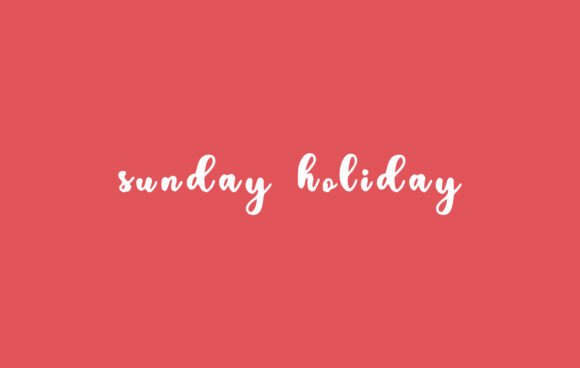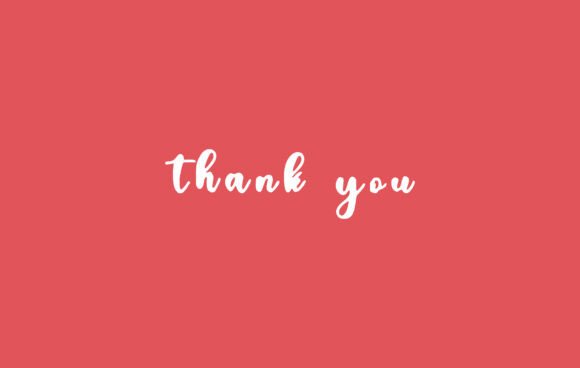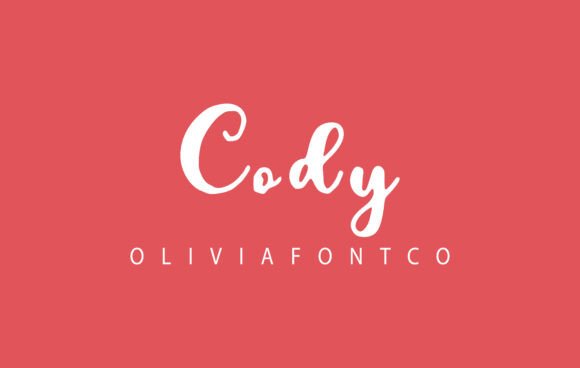
Cody Font: Elevate Your Designs with a Romantic Handwritten Touch
Are you on the hunt for a font that adds a touch of romance and elegance to your designs? Look no further than the Cody Font. This authentic handwritten font is expertly designed to capture the hearts of designers and crafters alike, making it a true favorite among creative enthusiasts. With its perfect blend of legibility and aesthetic appeal, Cody Font is poised to take your creative ideas to new heights.
The Characteristics of Cody Font
Cody Font boasts a romantic touch that sets it apart from other fonts. Its authentic handwritten style gives it a unique and personal feel, making it perfect for a wide range of design applications. Whether you’re working on magazine headlines, social media graphics, branding materials, wedding invitations, or cards, this font is sure to make a lasting impression.
One of the standout features of Cody Font is its exceptional legibility. This makes it an excellent choice for both title and body text, allowing you to use it consistently throughout your designs without sacrificing readability. The font’s versatility is truly remarkable, making it a valuable addition to any designer’s toolkit.
Design Applications for Cody Font
The possibilities are endless when it comes to using Cody Font in your designs. Here are a few ideas to get you started:
- Magazine Headlines: Add a touch of sophistication to your magazine covers with Cody Font. Its elegant style is sure to grab the attention of readers and make your publication stand out.
- Social Media Graphics: Elevate your social media presence with eye-catching graphics featuring Cody Font. Whether you’re creating posts, stories, or ads, this font is sure to make your content shine.
- Branding: Establish a strong brand identity with Cody Font. Its unique style will help you differentiate your brand and leave a lasting impression on your audience.
- Wedding Invitations: Make your wedding invitations truly special with Cody Font. Its romantic touch will set the tone for your big day and make your invitations unforgettable.
- Cards: Add a personal touch to your cards with Cody Font. Whether you’re creating greeting cards, thank-you cards, or any other type of card, this font is sure to make it extra special.
Why Choose Cody Font?
With so many fonts available, why choose Cody Font? Here are just a few reasons why designers and crafters are falling in love with this amazing font:
- Unique Style: Cody Font boasts a unique and authentic handwritten style that’s sure to make your designs stand out.
- Exceptional Legibility: This font is incredibly legible, making it perfect for both title and body text.
- Versatility: Cody Font can be used in a wide range of design applications, from magazine headlines to social media graphics.
- Elegant Touch: The romantic touch of Cody Font adds an elegant and sophisticated feel to any design.
In conclusion, Cody Font is a game-changer for designers and crafters looking to add a touch of romance and elegance to their designs. Its authentic handwritten style, exceptional legibility, and versatility make it the perfect choice for a wide range of design applications. Whether you’re working on magazine headlines, social media graphics, branding materials, wedding invitations, or cards, Cody Font is sure to elevate your creative ideas to new heights. So why wait? Give Cody Font a try today and experience the difference for yourself.